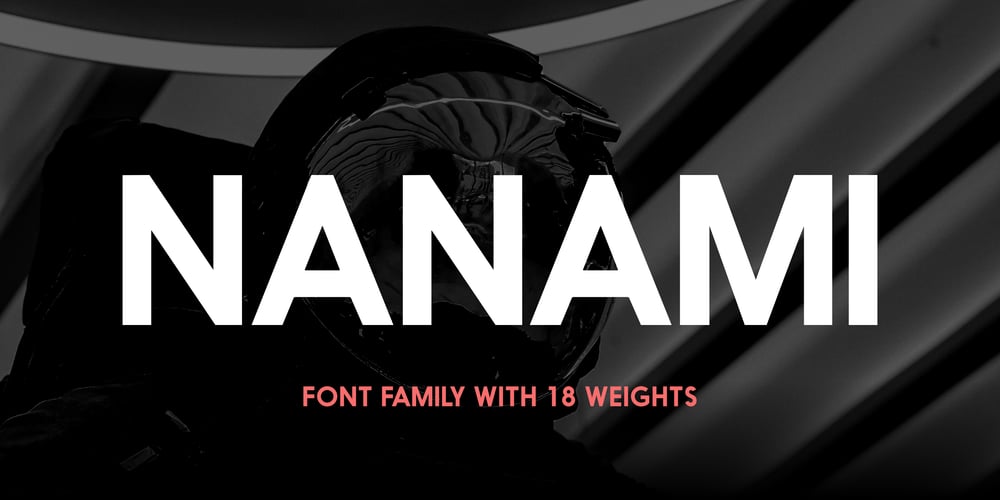
Nanami Font Family was designed by Alex Haigh and published by HyperFluro. Nanami contains 19 styles and family package options. Nanami, a font inspired by the oriental flavors of Japan, has become a global best-seller, consistently achieving top-ranking positions across multiple digital marketplaces throughout its lifetime. This font, characterized by its confident and clean lines, is a classic that remains our most popular release to this day.Nanami’s distinctly sharp edges cut through empty space like Samurai swords, proudly showcasing curves and corners akin to a Samurai’s traditional ceremonial armor, exuding a similar fierceness. If Nanami isn’t quite to your taste, consider exploring its counterparts, Nanami Rounded and Nanami Handmade.